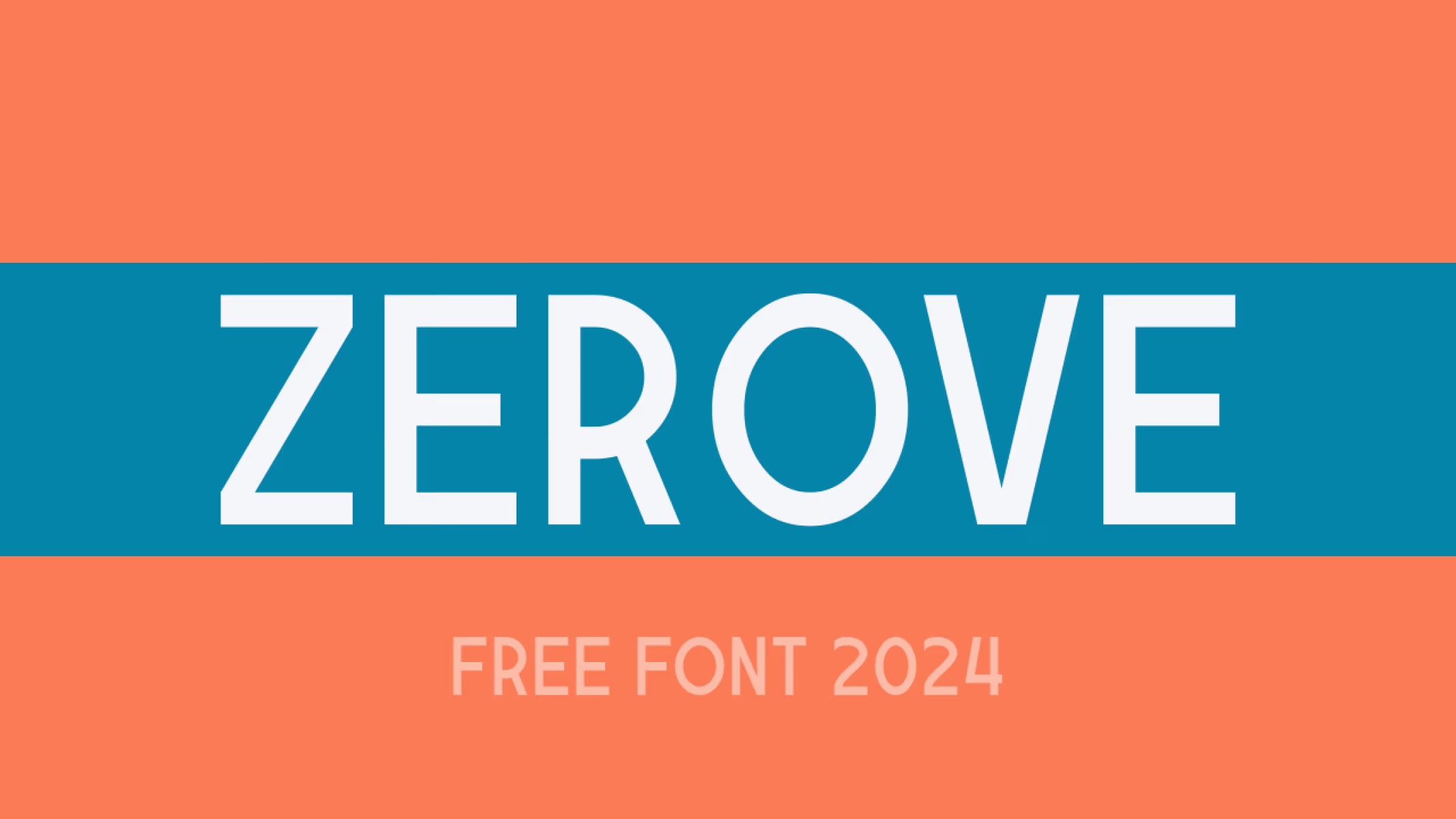
Zerove Font
Zerove Font is a stylish typeface that enhances visual appeal and works effortlessly in many design contexts. Zerove is a clean, all-caps sans serif with a light geometric feel and a crisp contemporary tone. Its rounded bowls, straight-sided stems, open spacing, and minimal stroke contrast give it a clear, even rhythm, while the italic style adds a sharper forward motion without losing its simplicity.
The typeface works well for headlines, posters, tech-oriented branding, packaging, social media graphics, and clean editorial titles where a bright, modern voice is needed. Its broad character support and distinctive punctuation make it especially useful for multilingual display settings.